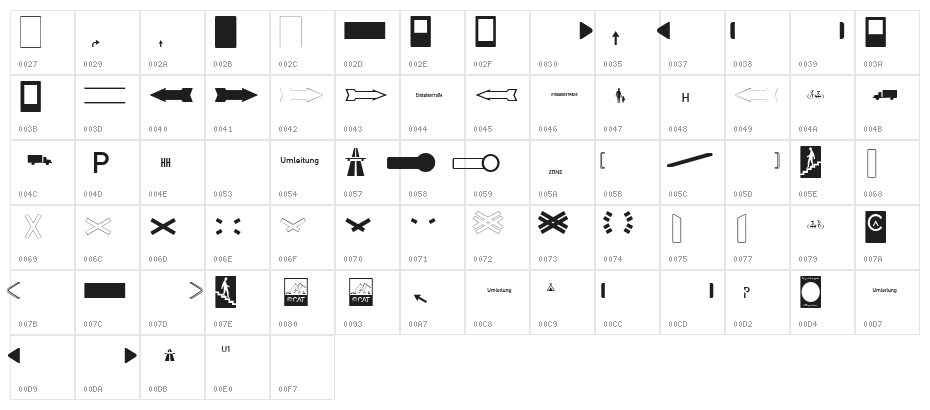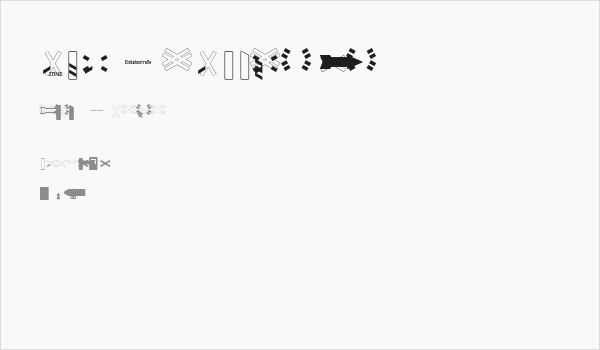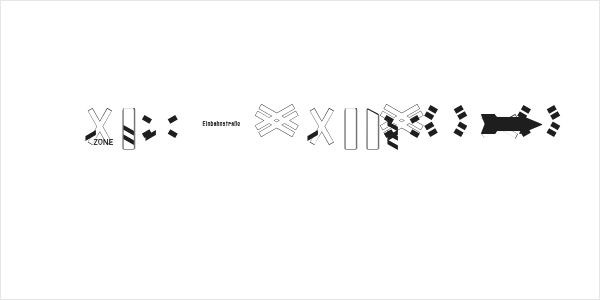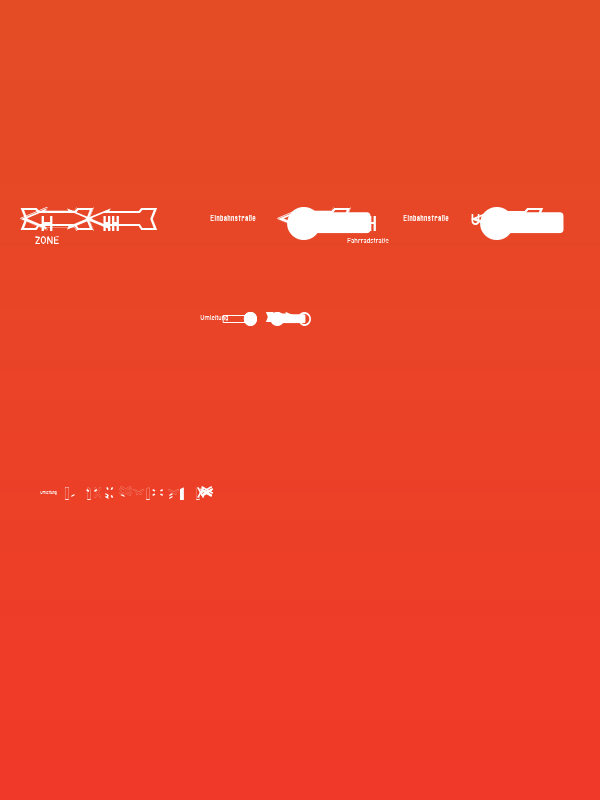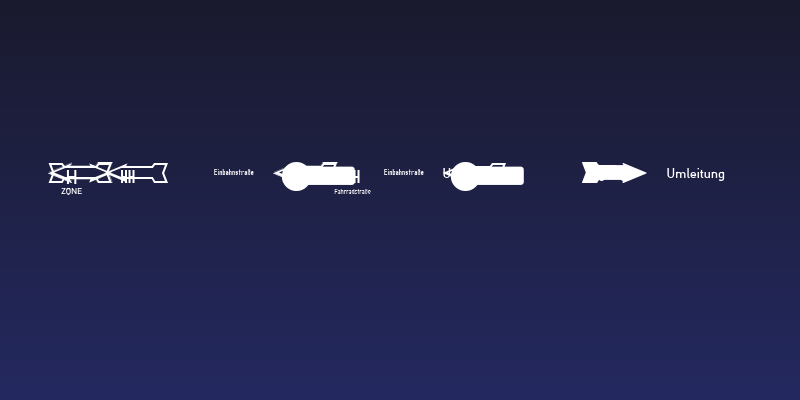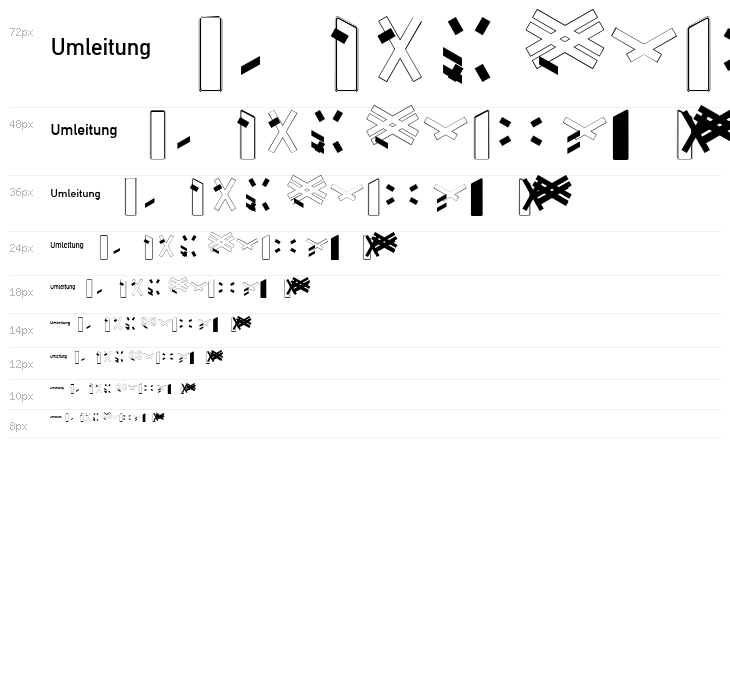
Zeichen Dreihundert Alt Font
Zeichen Dreihundert Alt Description
A collection of pictograms and symbols commonly used in German road signage, featuring bold, geometric shapes and high-contrast black-and-white elements. The set includes arrows, vehicles, bicycles, people, and various traffic-related icons, with minimal use of text and a utilitarian, functional design.
| Overall Style | Functional, Modern, Utilitarian |
| Use Case | Signage, Icons, Wayfinding |
| Proposed Projects | Wayfinding systems, transportation signage, instructional graphics, public information displays. |